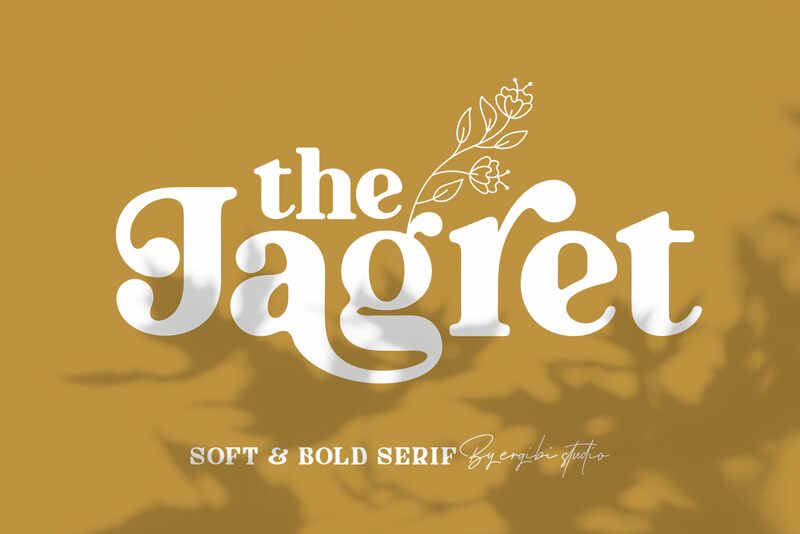
the Jagret
The Jagret is a bold serif font designed by Riyadh Rahman. Perfect for creating professional titles, logos & branding projects, this timeless classic will give your designs a modern edge.